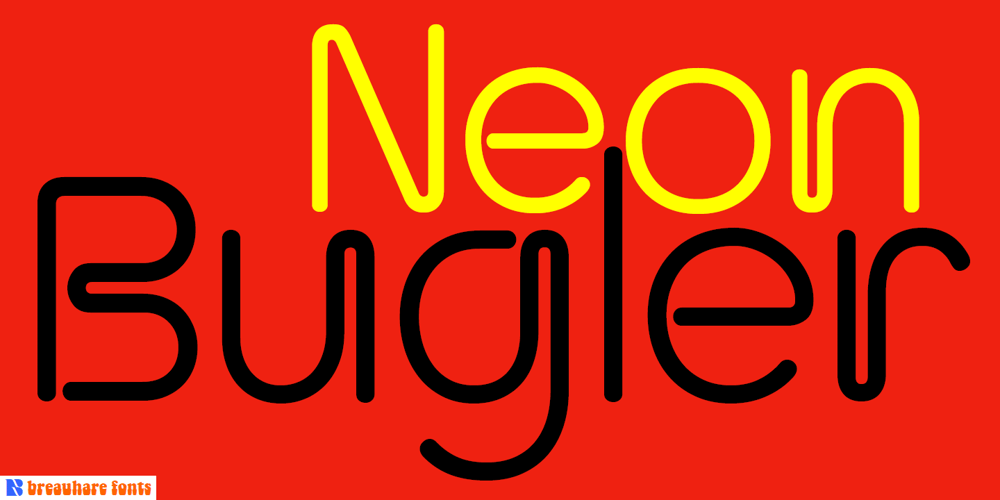
Neon Bugler
Neon Bugler font
Neon Bugler Font Family was designed by Harry Warren and published by Breauhare. Neon Bugler contains 1 styles and family package options. Neon Bugler is a font based on the third logo created by Harry Warren in early 1975 for his sixth grade class newsletter, The Broadwater Bugler, at Broadwater Academy in Exmore, Virginia, on Virginia’s Eastern Shore. This font design has these principles as its parameters: The letters generally follow what would be natural stroke directions; no sharp corners, all gentle turns; no lines back up over each other, cross each other, or run into each other. All of this civility between the lines produces an unintentional but welcome neon quality about it. This font can have a variety of vibes depending on its context–it has a certain nostalgia to it, yet it also has a slick, clean, futuristic look. It can even be used in a semi-grunge setting. This is a very versatile font! And if you like this font, check out the new boxy version of it, Neon Bugler Squared! Digitized by John Bomparte.